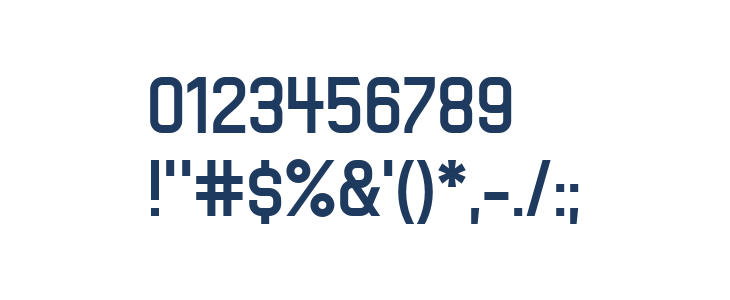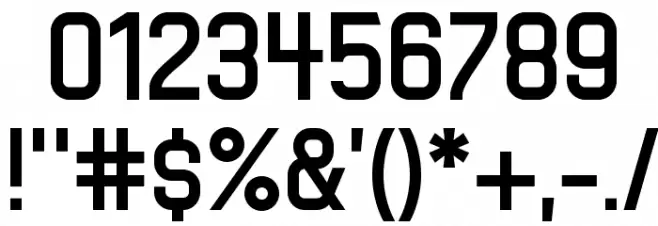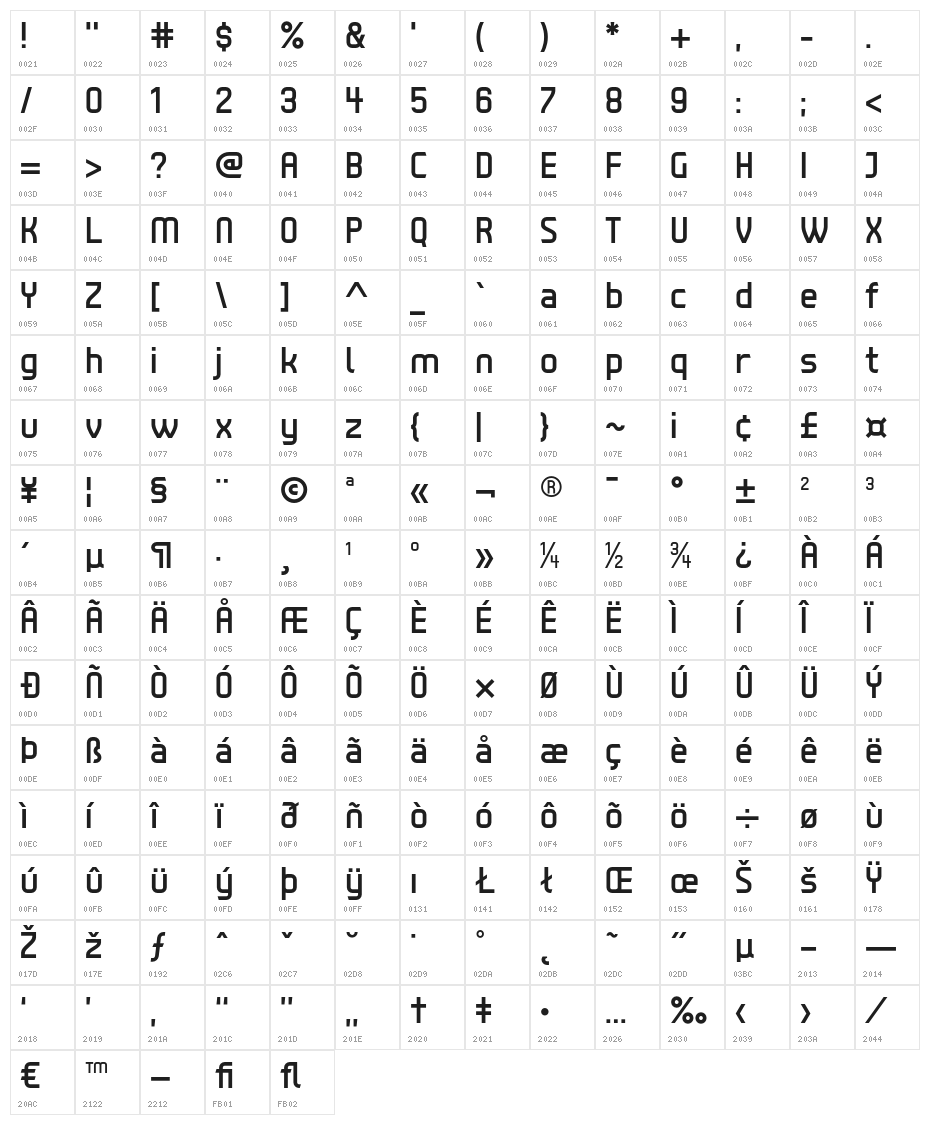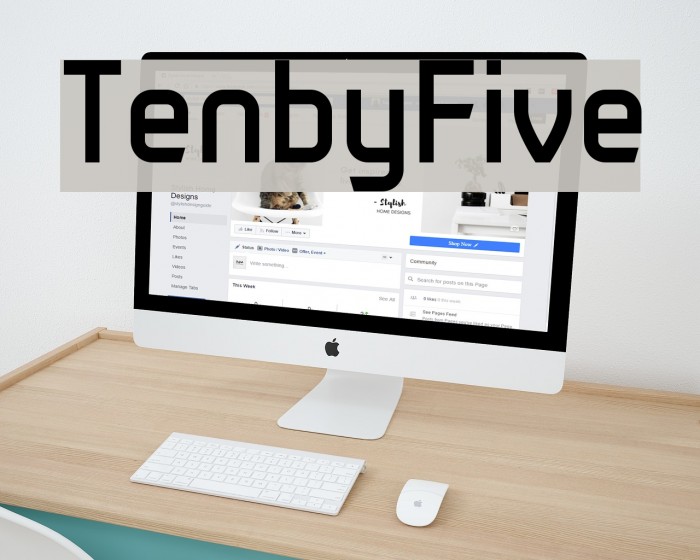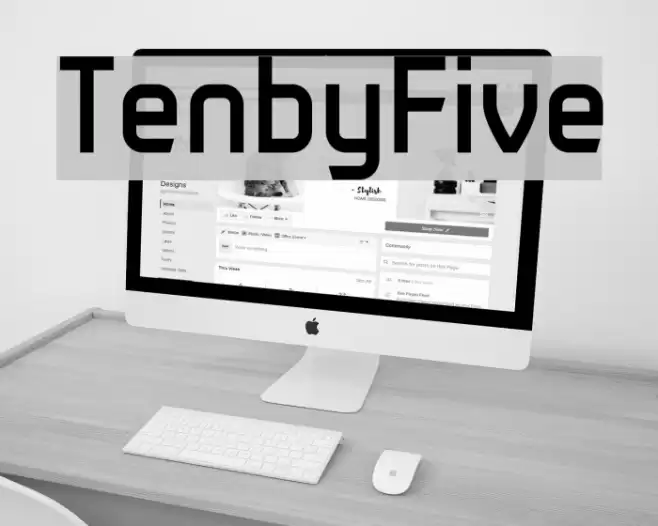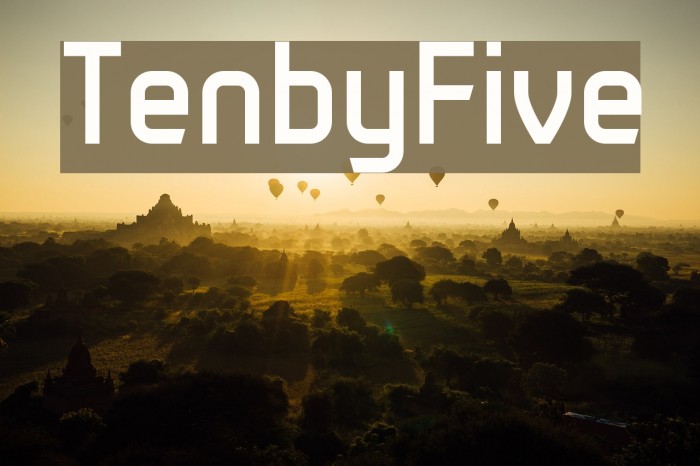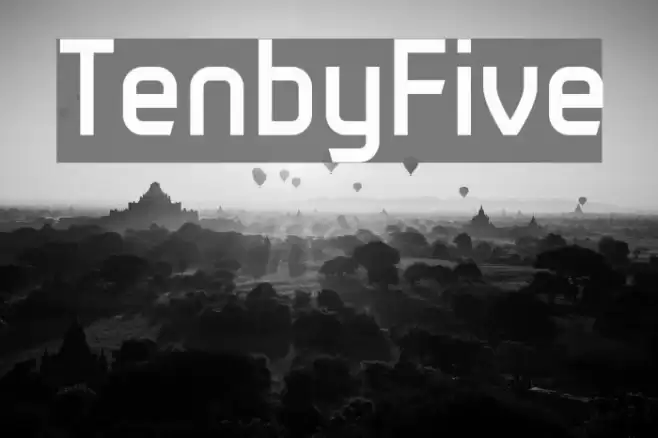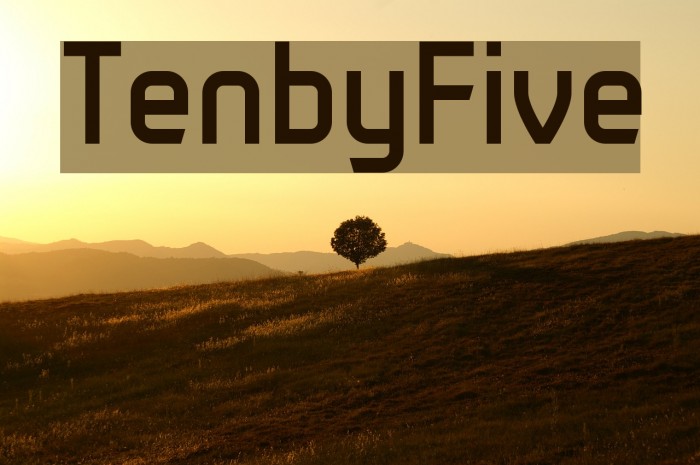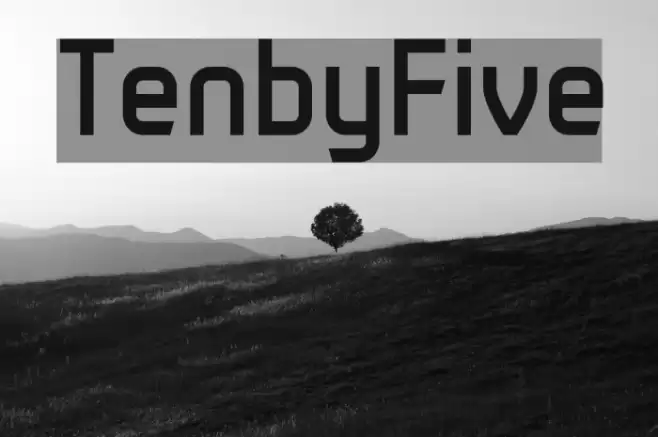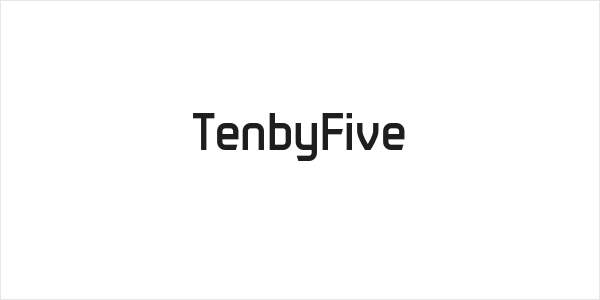
TenbyFive Font
TenbyFive Description
This font features a modern and geometric design with clean, straight lines and rounded edges. The uppercase letters are bold and uniform, creating a strong visual impact. The lowercase letters maintain the same geometric style, offering a consistent look throughout. The numerals are clear and easy to read, matching the overall aesthetic. Special characters are well-integrated, ensuring versatility in various applications. The font's design is both functional and stylish, making it suitable for a wide range of uses.
| Use Case | Headlines, Logos, Digital Media |
| Proposed Projects | Ideal for branding, advertising, and digital media projects where a modern and clean aesthetic is desired. |